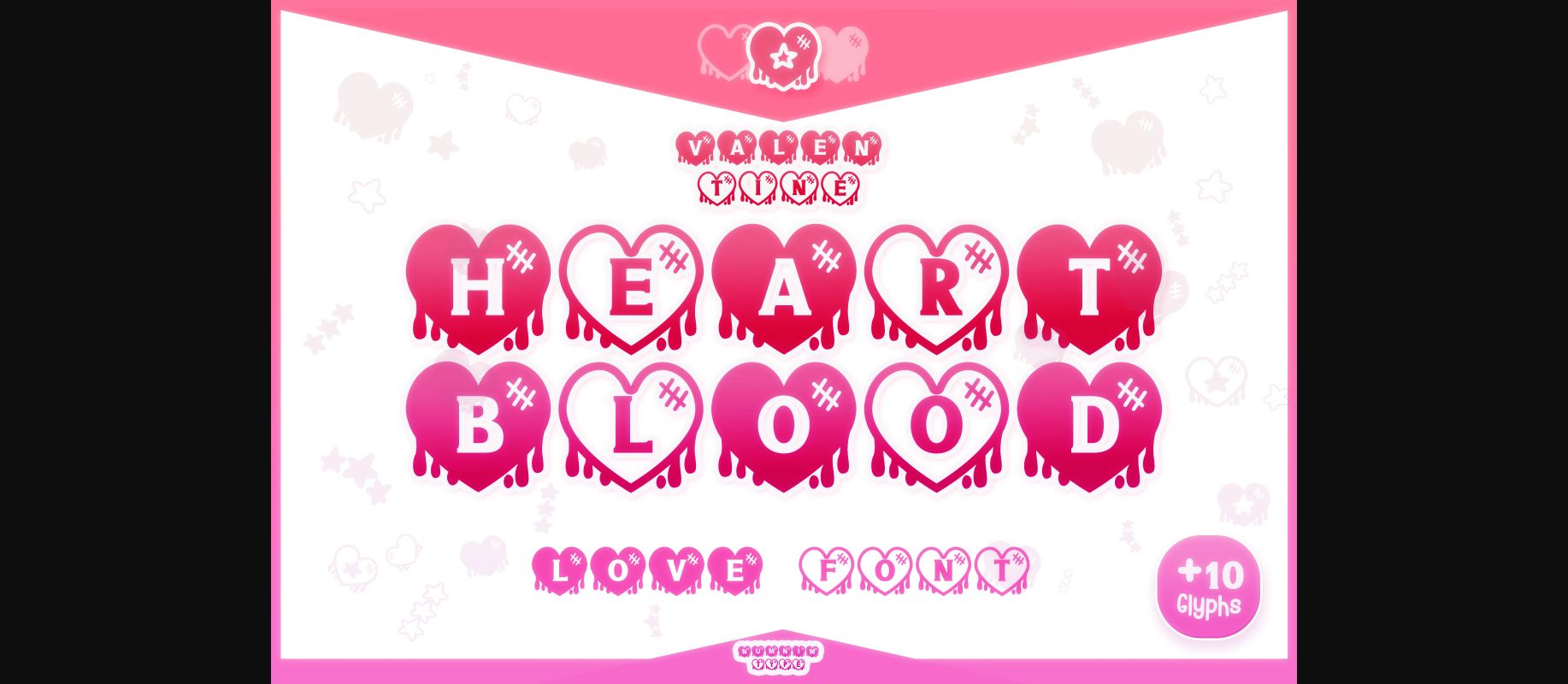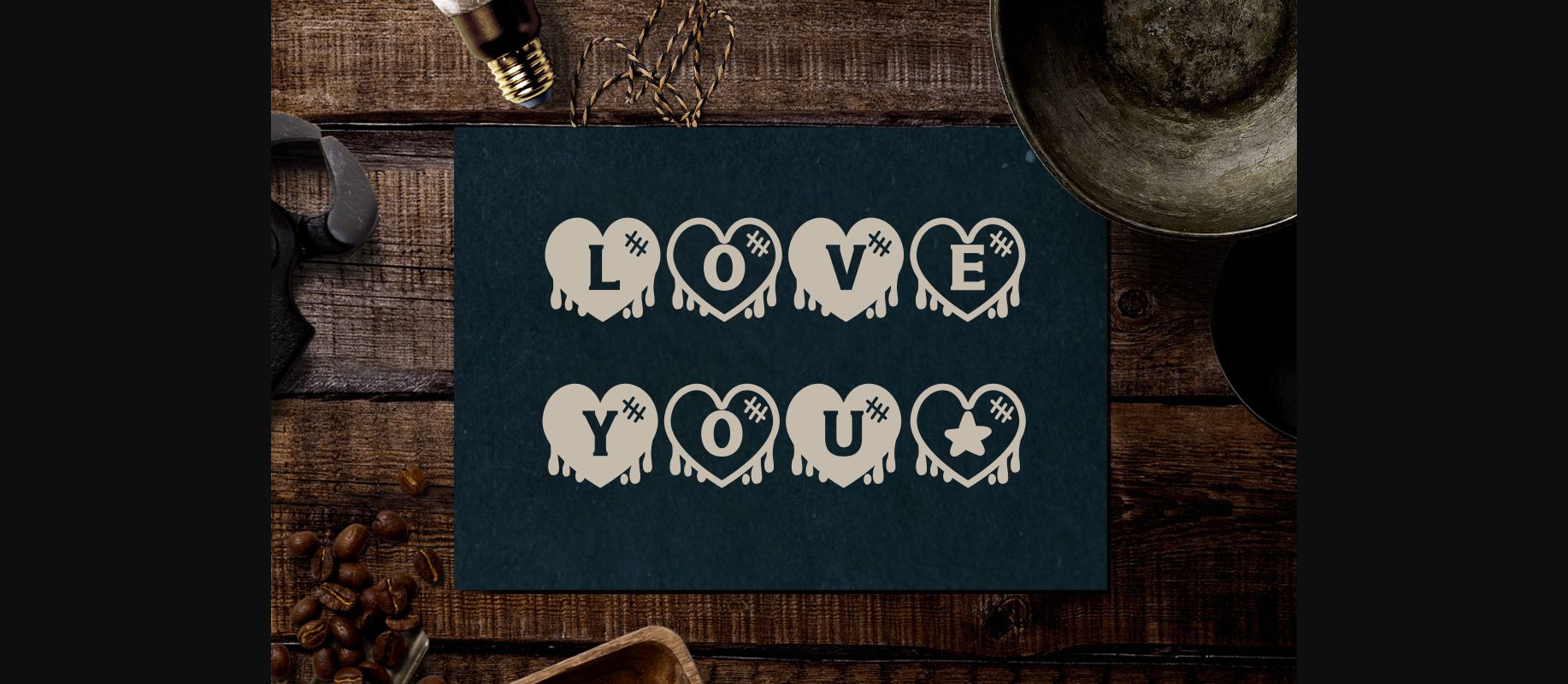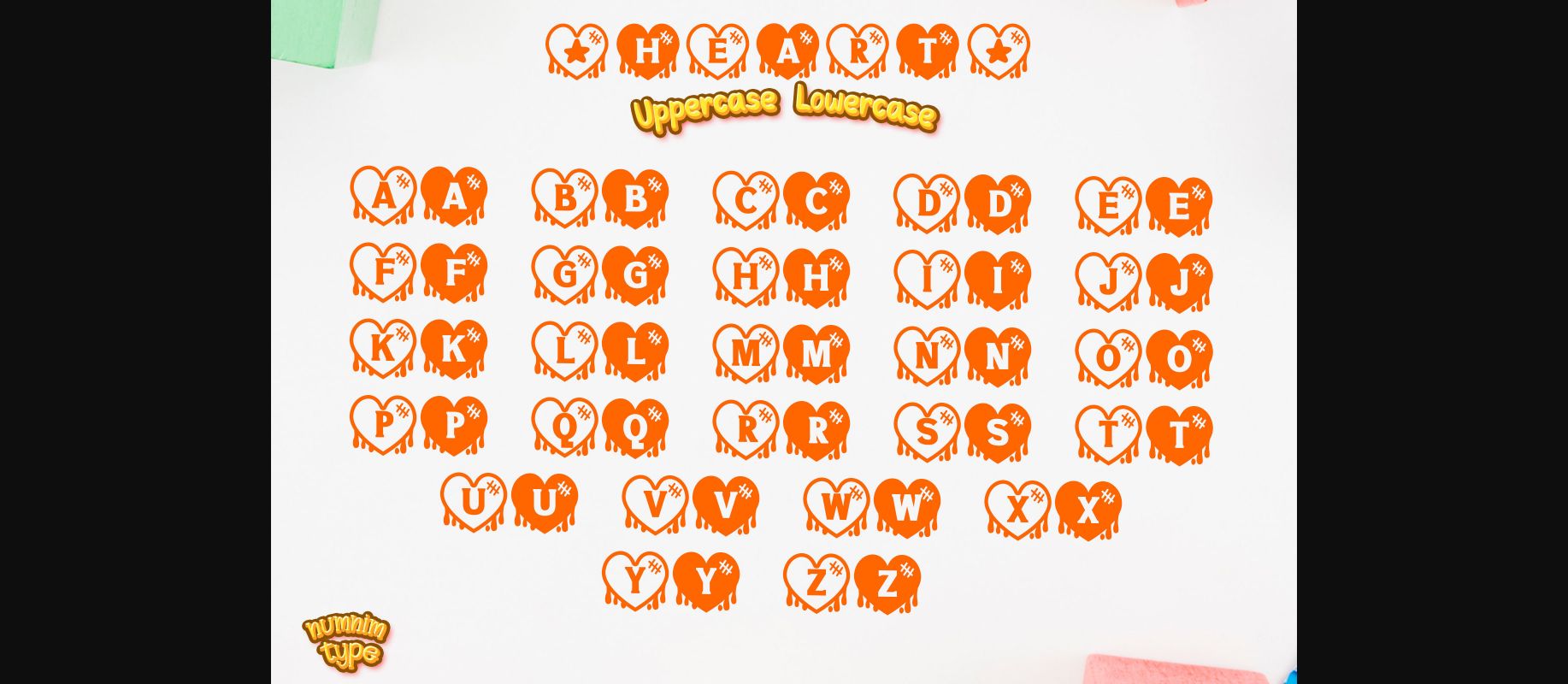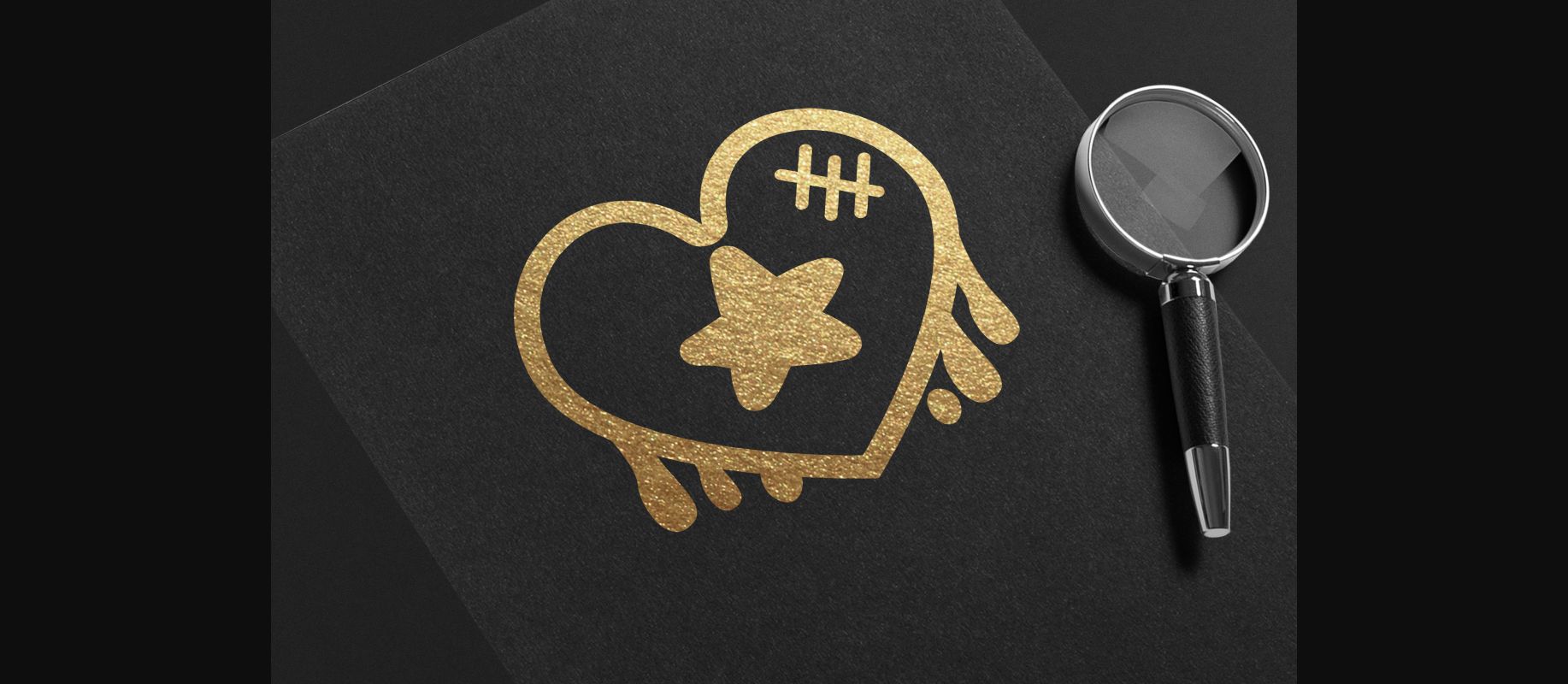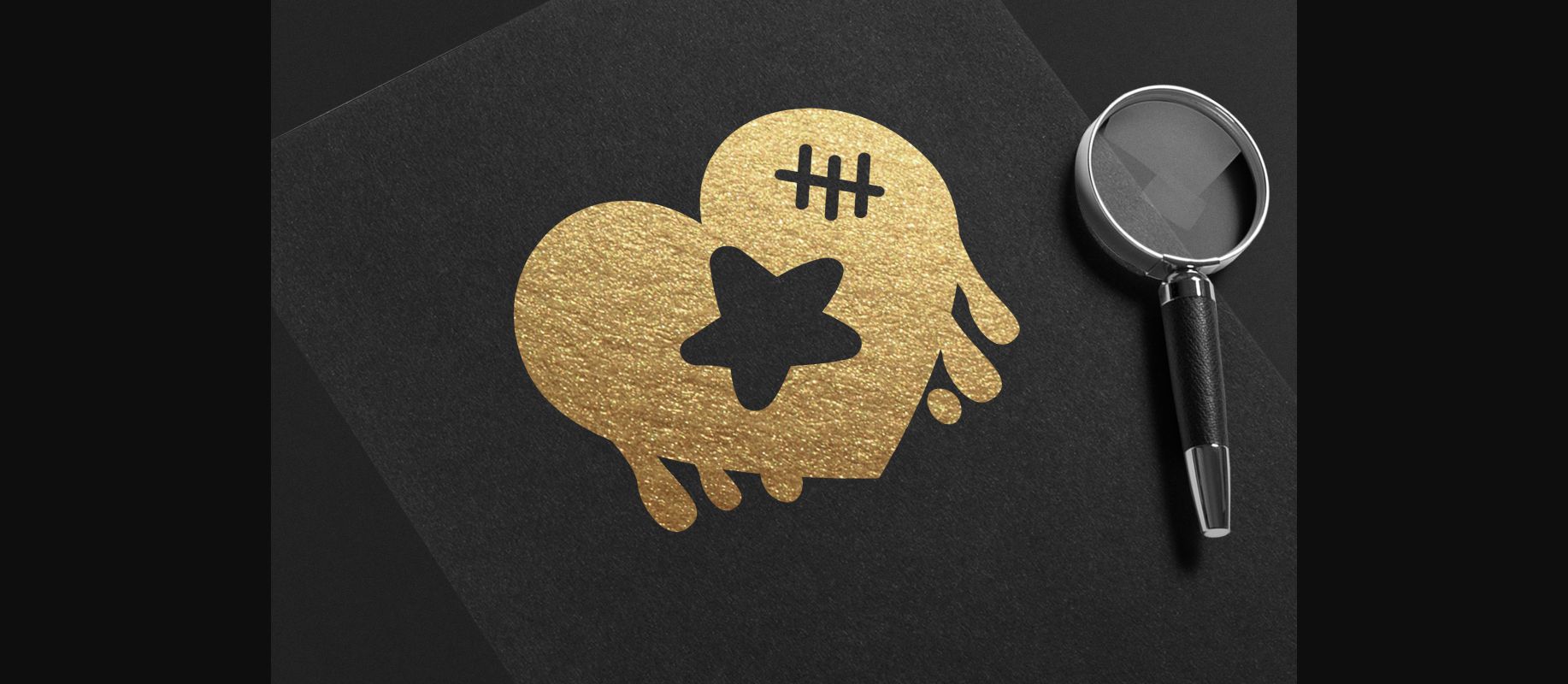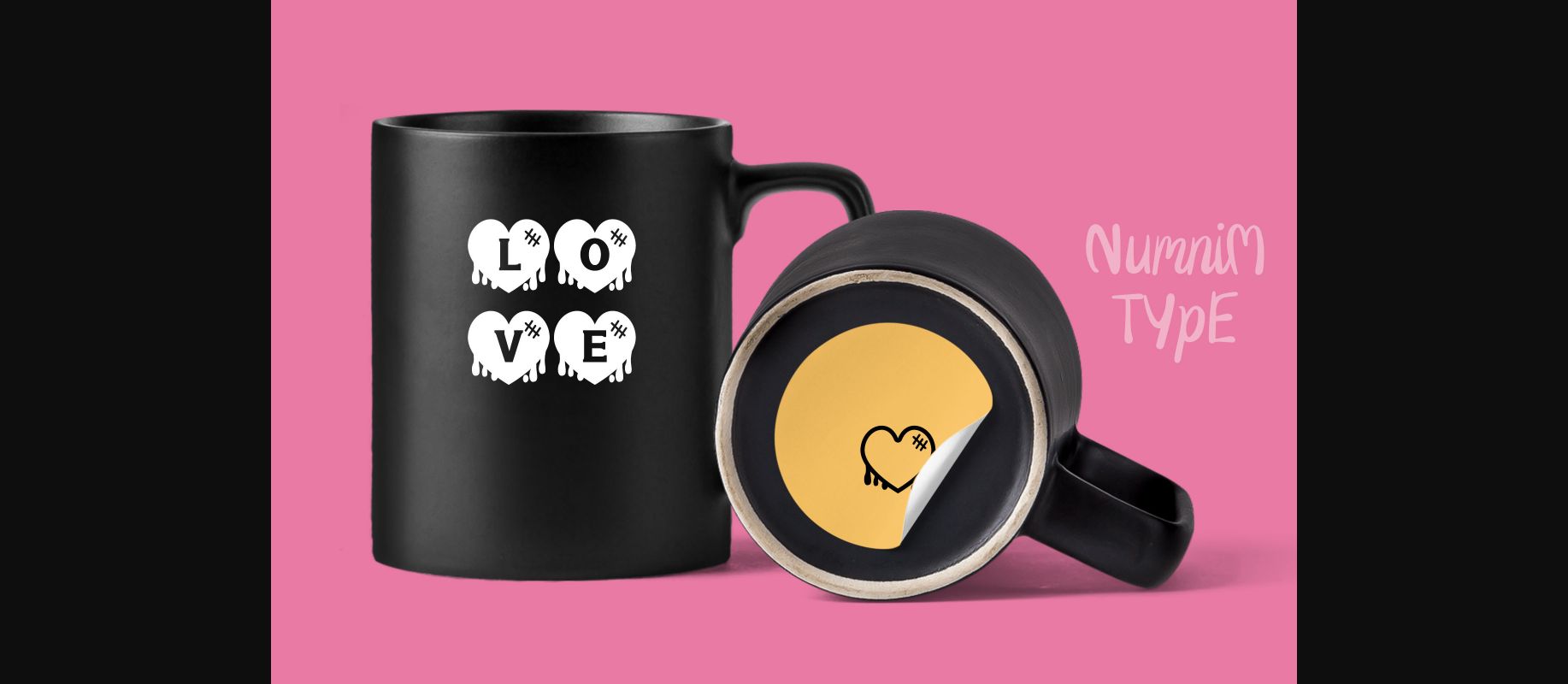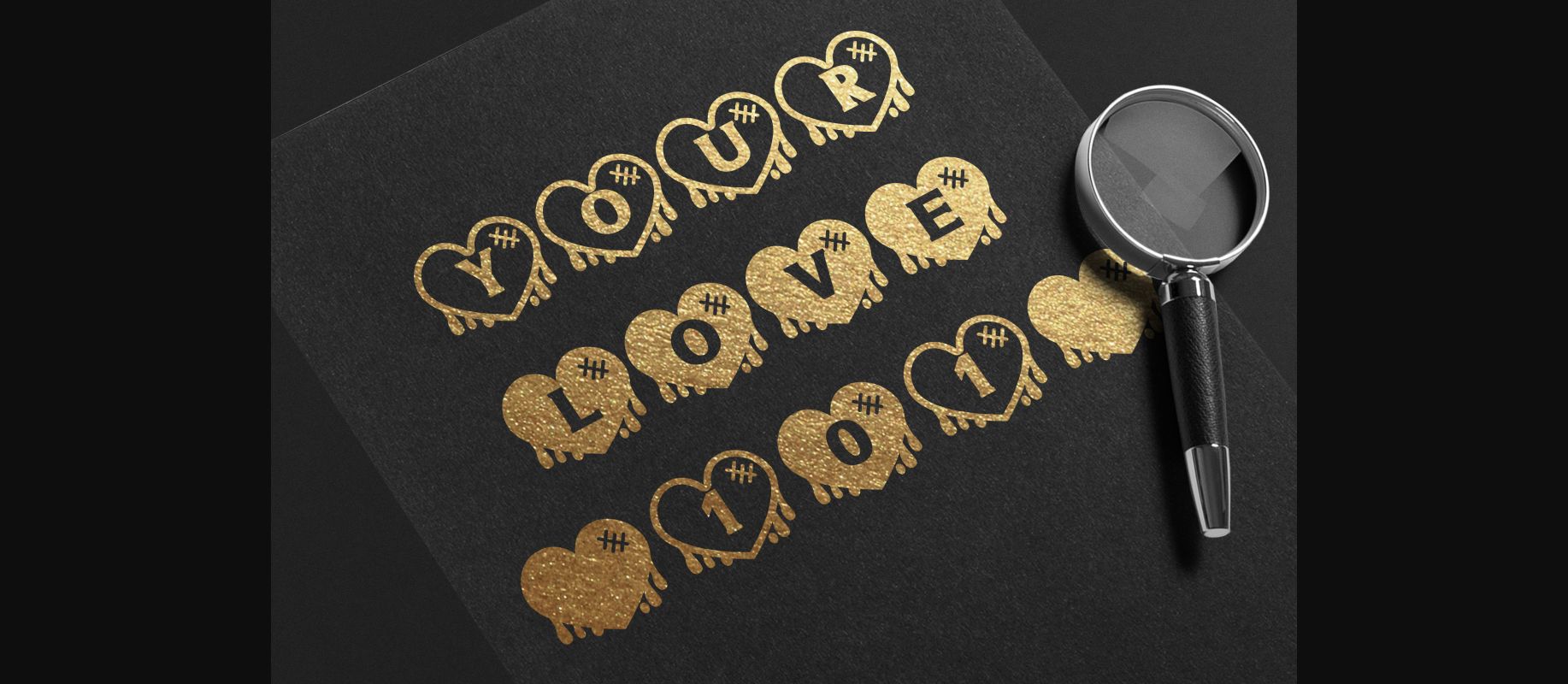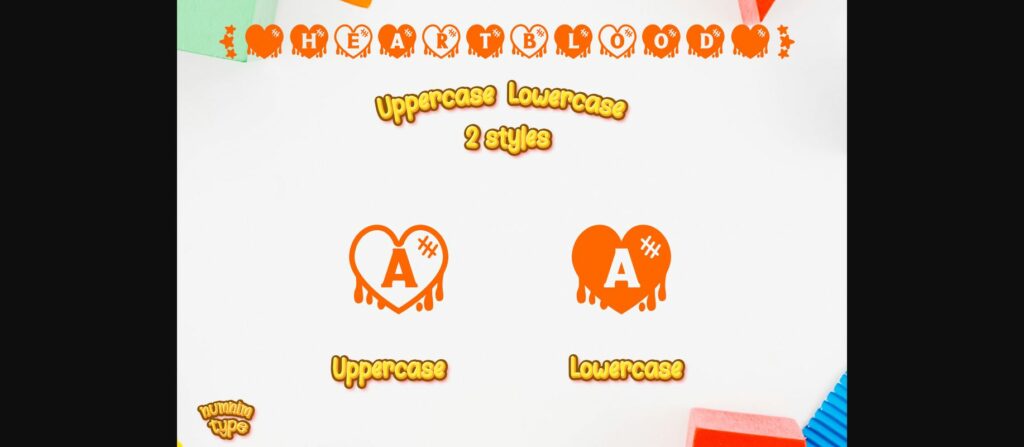
Heart Blood Font
About Heart Blood Font
Heart Blood is a cool and uniquely designed decorative font. Each character is fun and playful, perfect for adding a bold accent to your designs! It can be used to create stickers, mugs, t-shirts, ornaments, Valentine’s cards, event invitations, and much more.